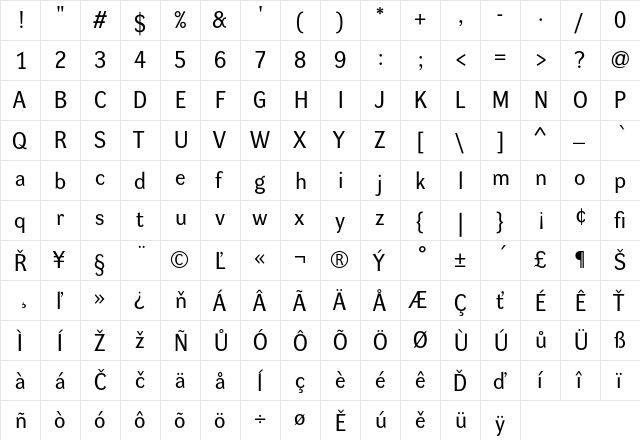
Dynamo R Regular
Design Context for Dynamo R Typeface
Dynamo R offers clean, dependable letterforms without strong stylistic allegiance, making it a practical choice for designers who need flexibility.
Pro Tip: Pair Dynamo R with a font of contrasting weight or personality to build a more expressive typographic hierarchy.